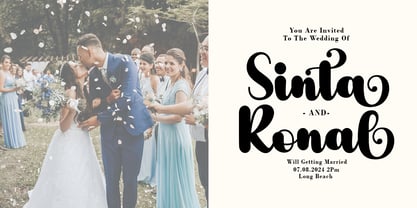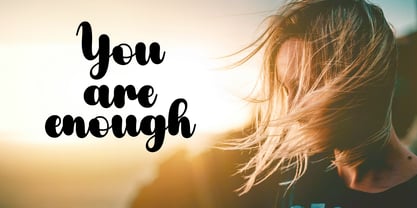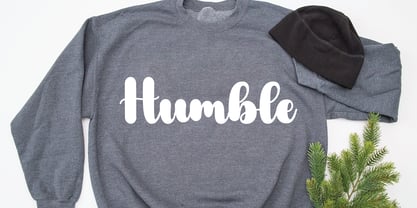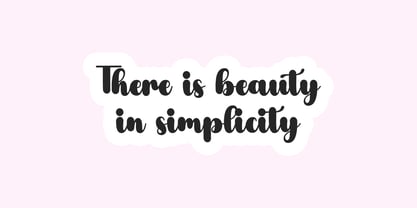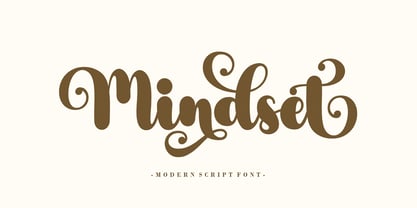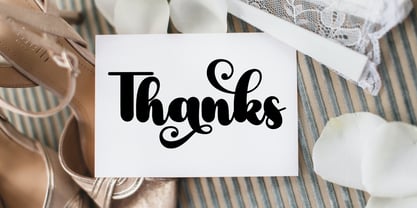
Mindset Script
por Good Design
La familia tipográfica Mindset Script fue diseñada por Agus Pujiyono y publicada por Good Design. Mindset Script contiene 1 estilos. Más información sobre esta familia
Mindset Script A new fresh ans modern hand lettered font with decorative characters and a dancing baseline. So beautiful on invitation like handicraft, greeting cards, branding materials, business cards, quotes, posters, and more design concepts.
Diseñadores: Agus Pujiyono
Fundición: Good Design